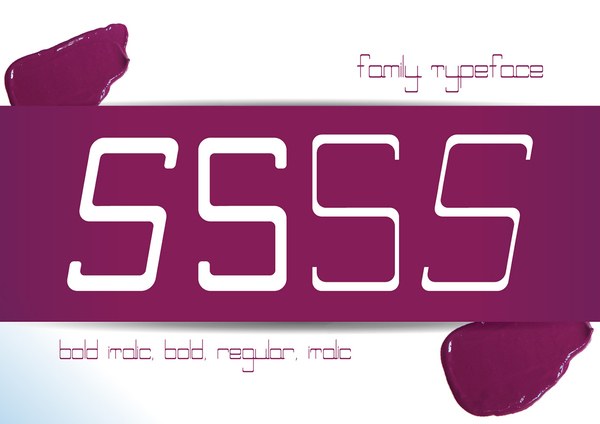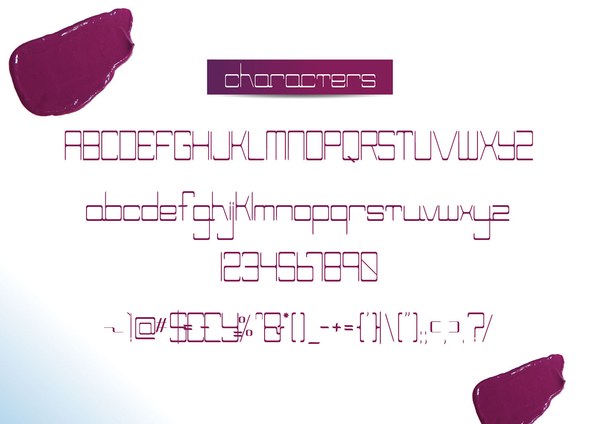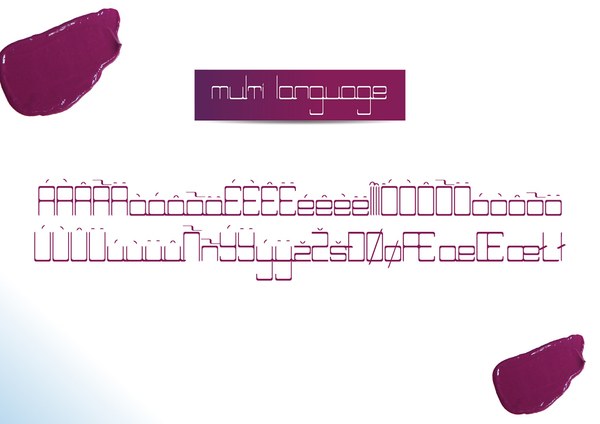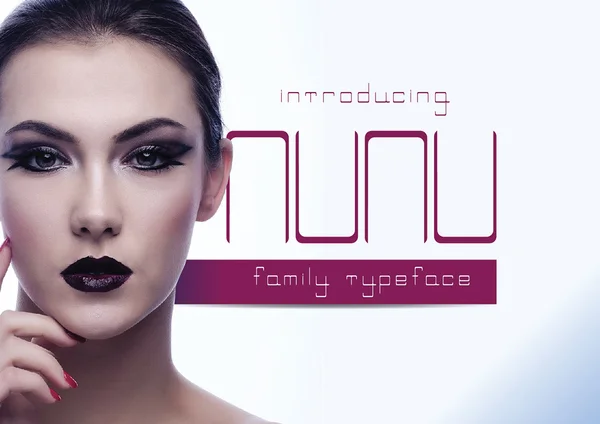
Nunu Font
Nunu Font is a sans-serif type which can be used for several type of projects from digital to print. Each font has small letters, capitals, numbers and punctuation. This typeface is for all type lovers who would like to emphasize a fashion project.
Nunu Font is a Display Fonts font that brings a professional and versatile look to your projects. Nunu Font is a sans-serif type which can be used for several type of projects from digital to print.